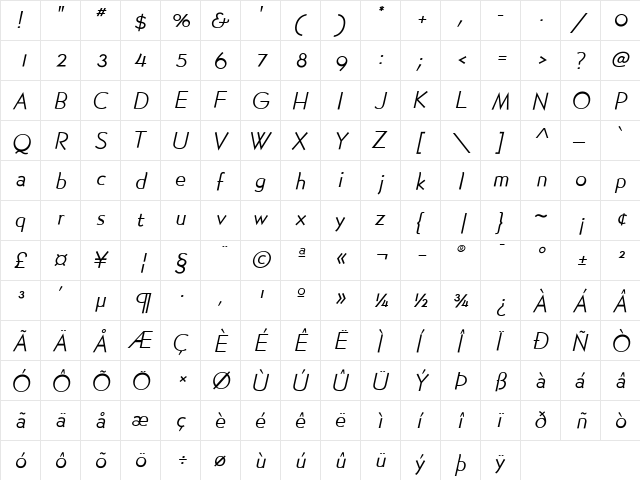
BernhardGothicSG Italic
Design Context for BernhardGothicSG Typeface
BernhardGothicSG takes a clean, functional approach — its unadorned letterforms prioritise legibility and work reliably across screen and print environments. The slanted form adds forward momentum and visual energy.
Font Pairing: Works well alongside a characterful serif or display font that can carry the expressive load while BernhardGothicSG handles the functional copy.
Pro Tip: Pair BernhardGothicSG with a display or serif font for headlines — its neutral character makes it an excellent supporting player in complex typographic systems.